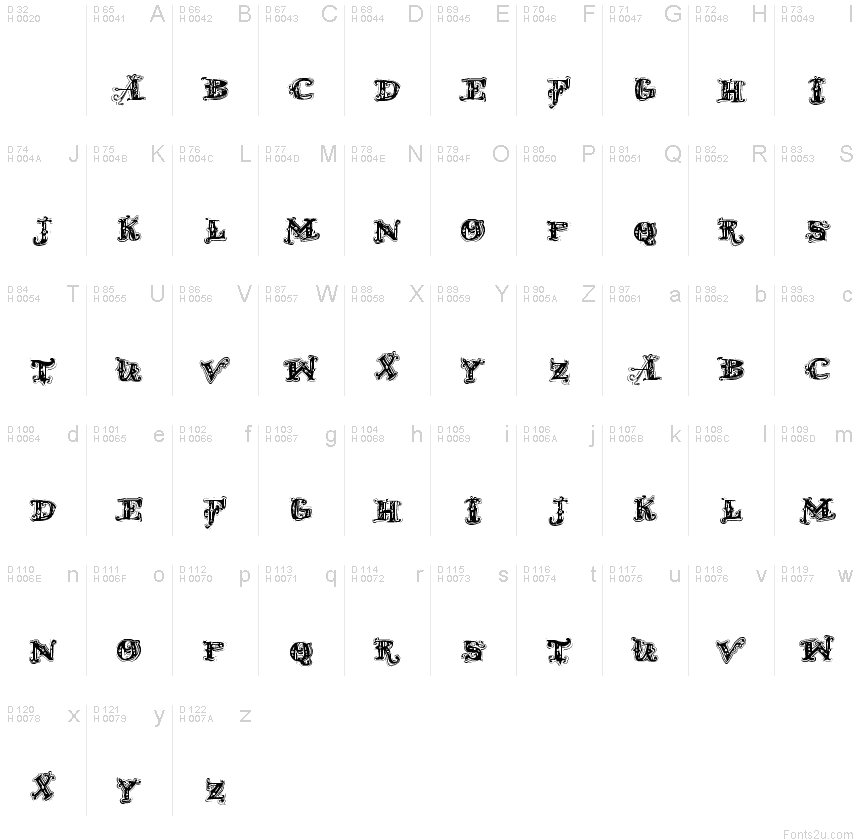
D_OLD MODERN 2
D_old modern 2 font by Vitkauskas is a free decorative vintage display typeface that looks like it’s been pulled from an old circus poster or a weathered letterpress drawer. Each letter is packed with swirling inlines, shadowed curls, and carved, inky textures that feel almost hand-engraved. The chunky silhouettes keep all that ornament readable, so even with the dense detailing, words land with a bold, theatrical punch.
Using D_old modern 2, you can give instant nostalgia to event posters, circus or carnival graphics, themed party invitations, book or zine covers, whiskey or apothecary-style labels, and standout logo wordmarks. This free font works best in big sizes where the inner filigree can really breathe. Pair it with a simple geometric sans serif for body text to let the ornate D_old modern family do the loud, expressive work in your titles.